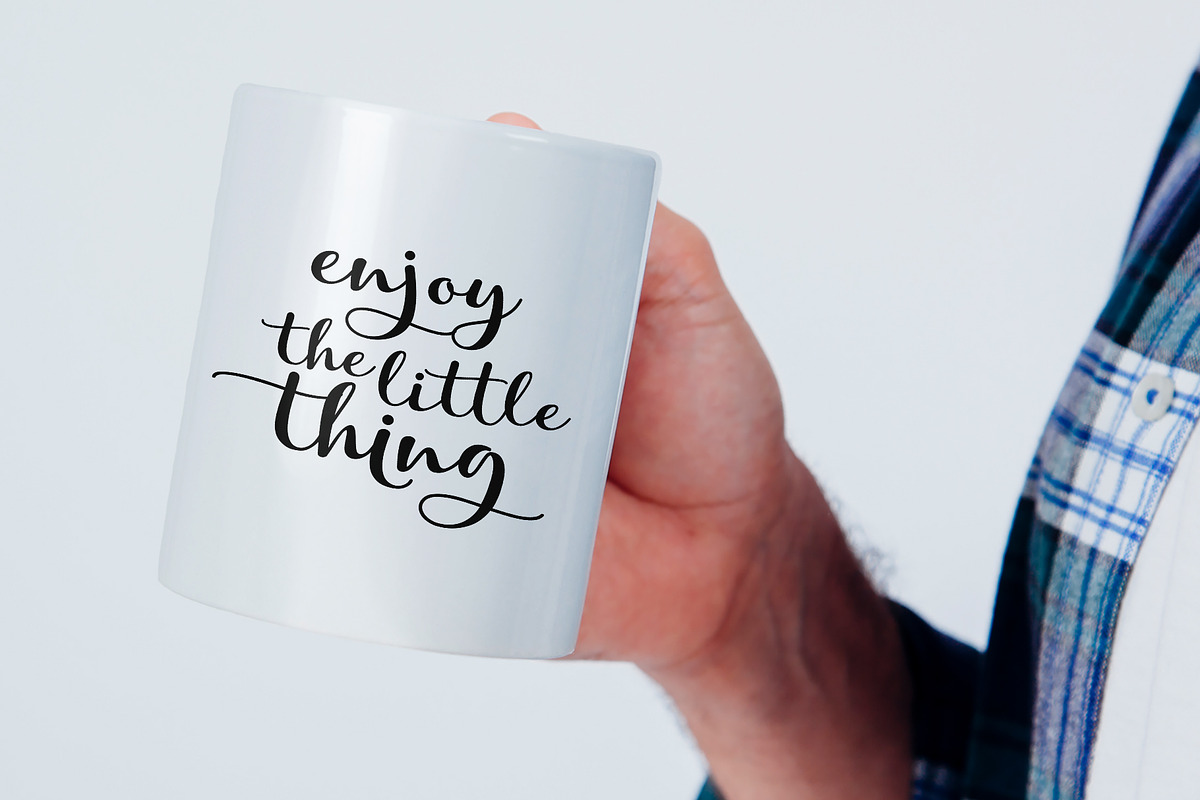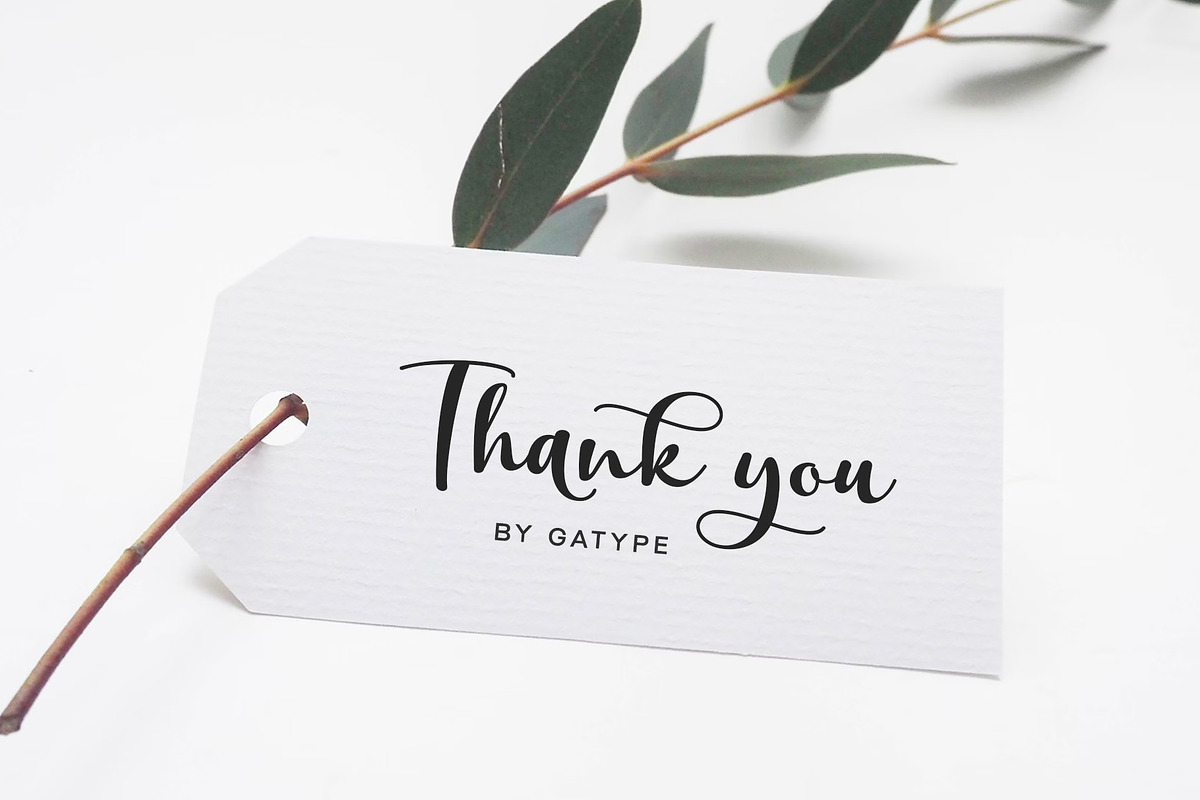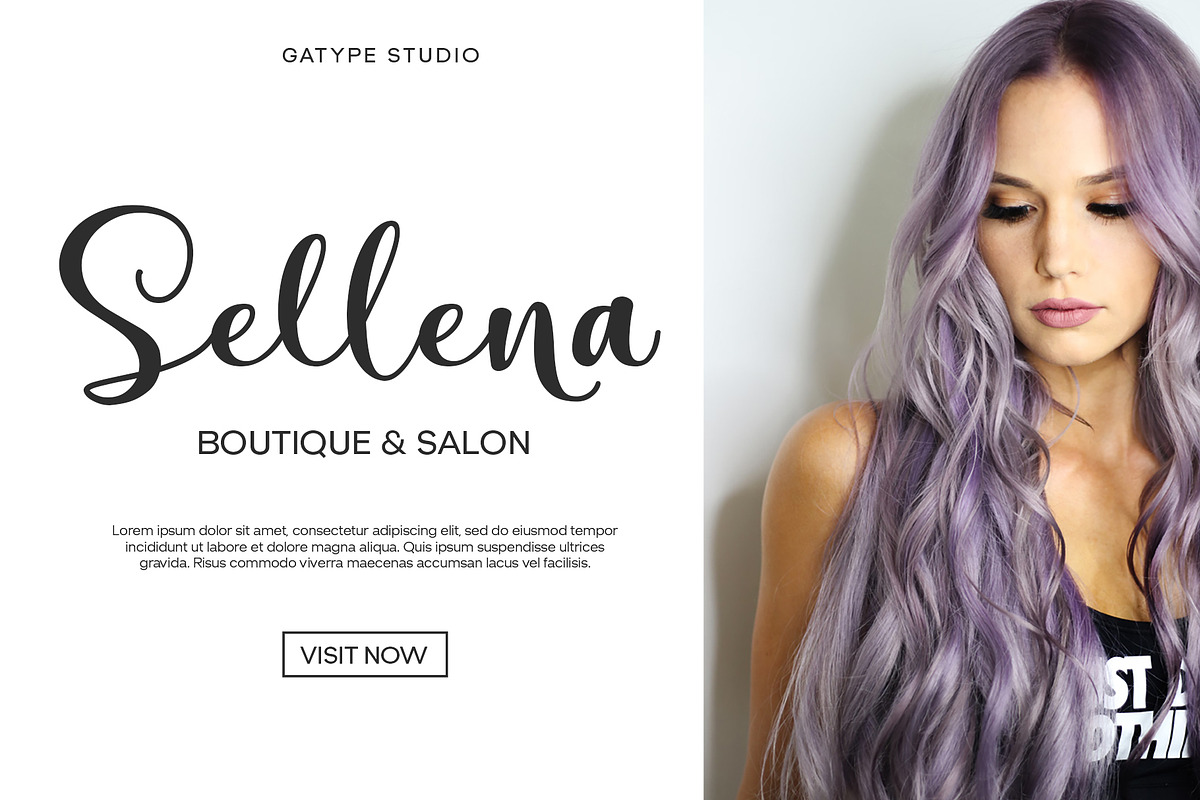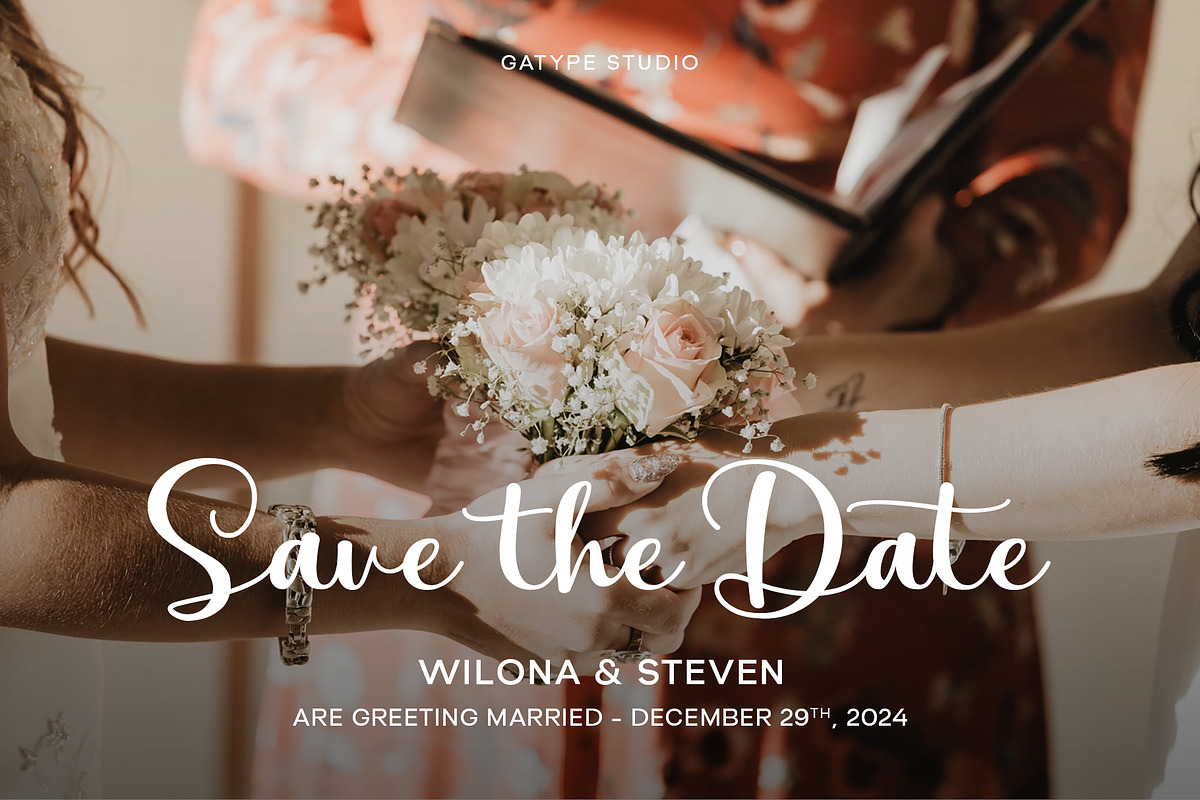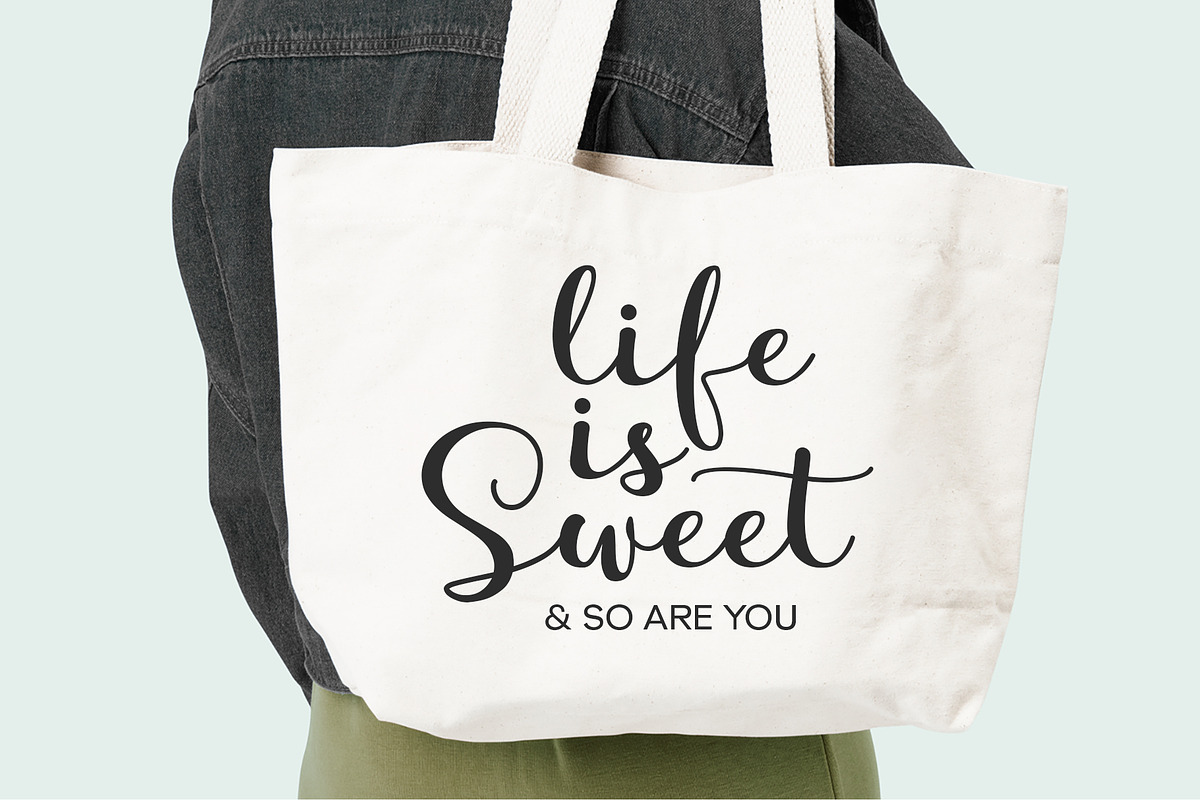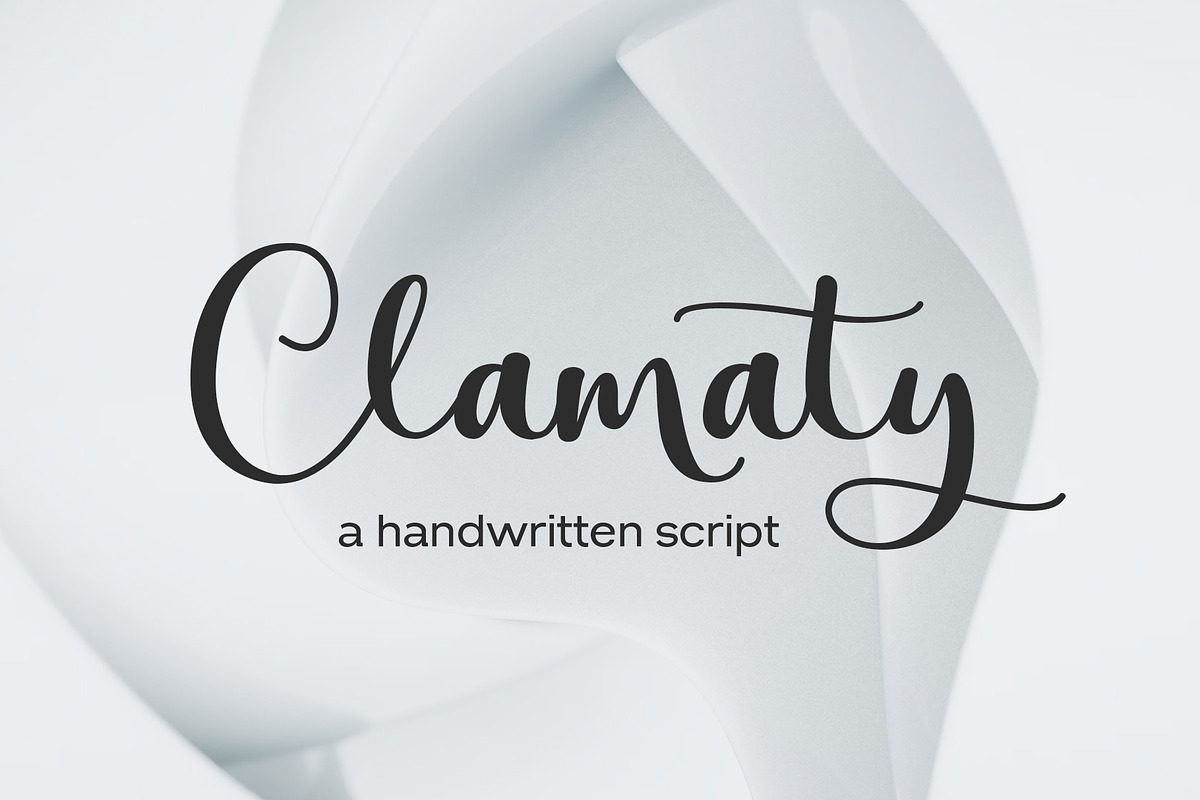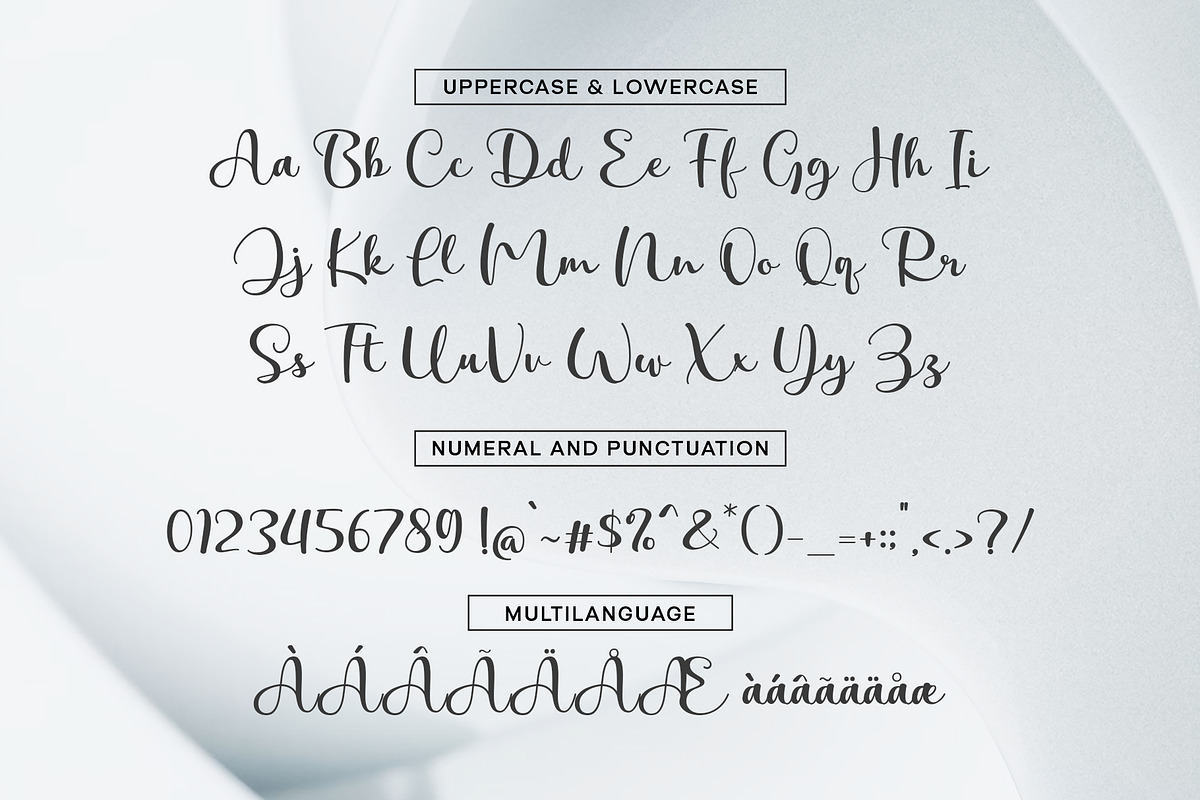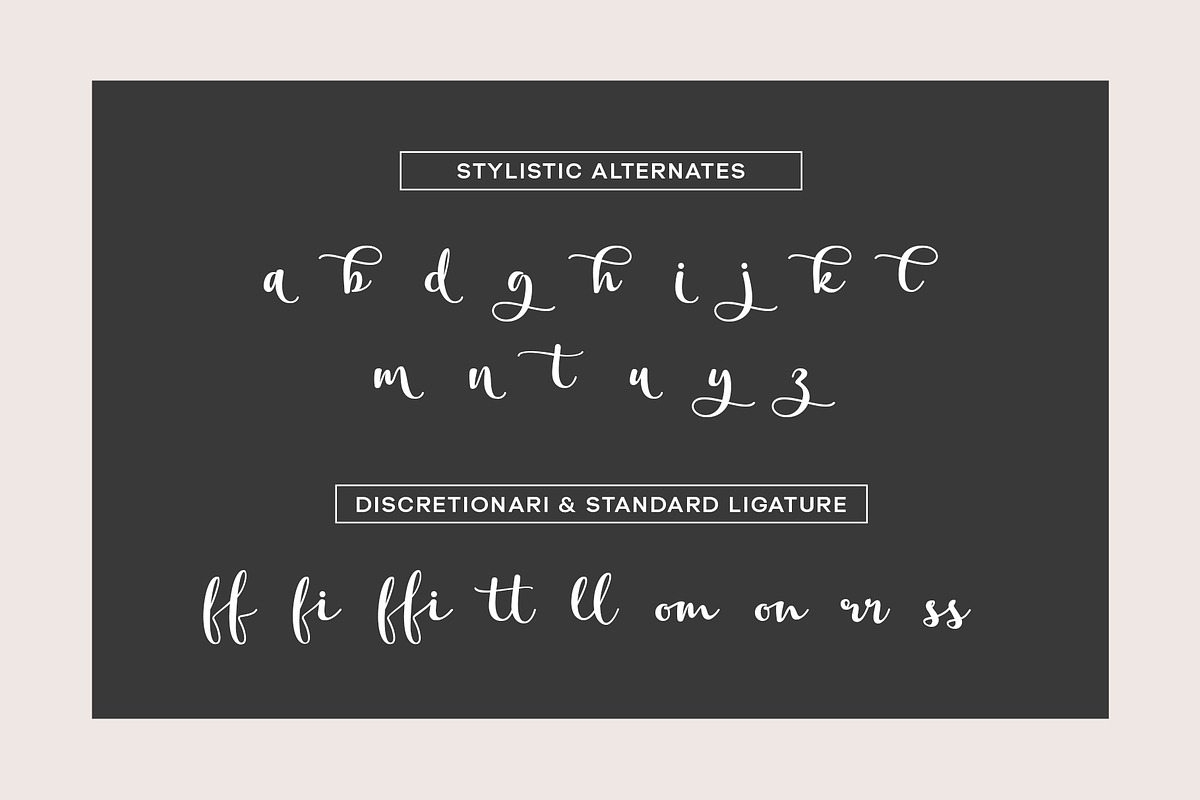
Clamaty script
Clamaty script is font characterized by its elegant and feminine style. This font is typically used for designs that require a delicate and beautiful touch, such as wedding invitations, branding, or other creative projects. The letterforms flow smoothly with varying thickness, adding an artistic feel. Clamaty often includes ornaments or ligatures that enhance the overall appearance of the text.